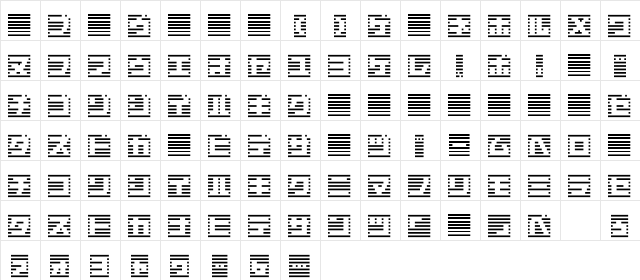
border7ka Regular Font Preview
border7ka Regular
border7ka Regular Font Details
Design Context for border7ka Typeface
border7ka is a composed and adaptable typeface that performs quietly and consistently across a wide range of design contexts.